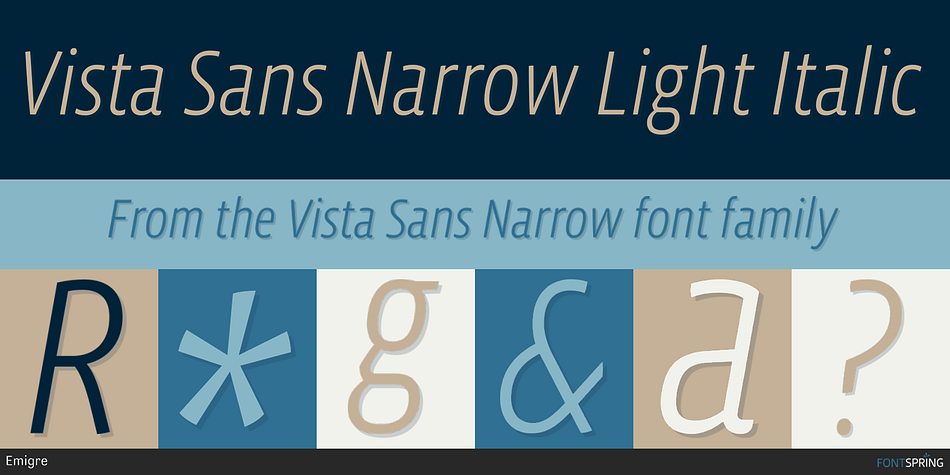
Vista Sans Narrow Light Italic
Designed by Xavier Dupré, Vista Sans Narrow is a sans serif font family. This typeface has twelve styles and was published by Emigre.
The Sans Narrow and Slab versions were added to the Vista family in 2008, extending the family to a total of 108 fonts.